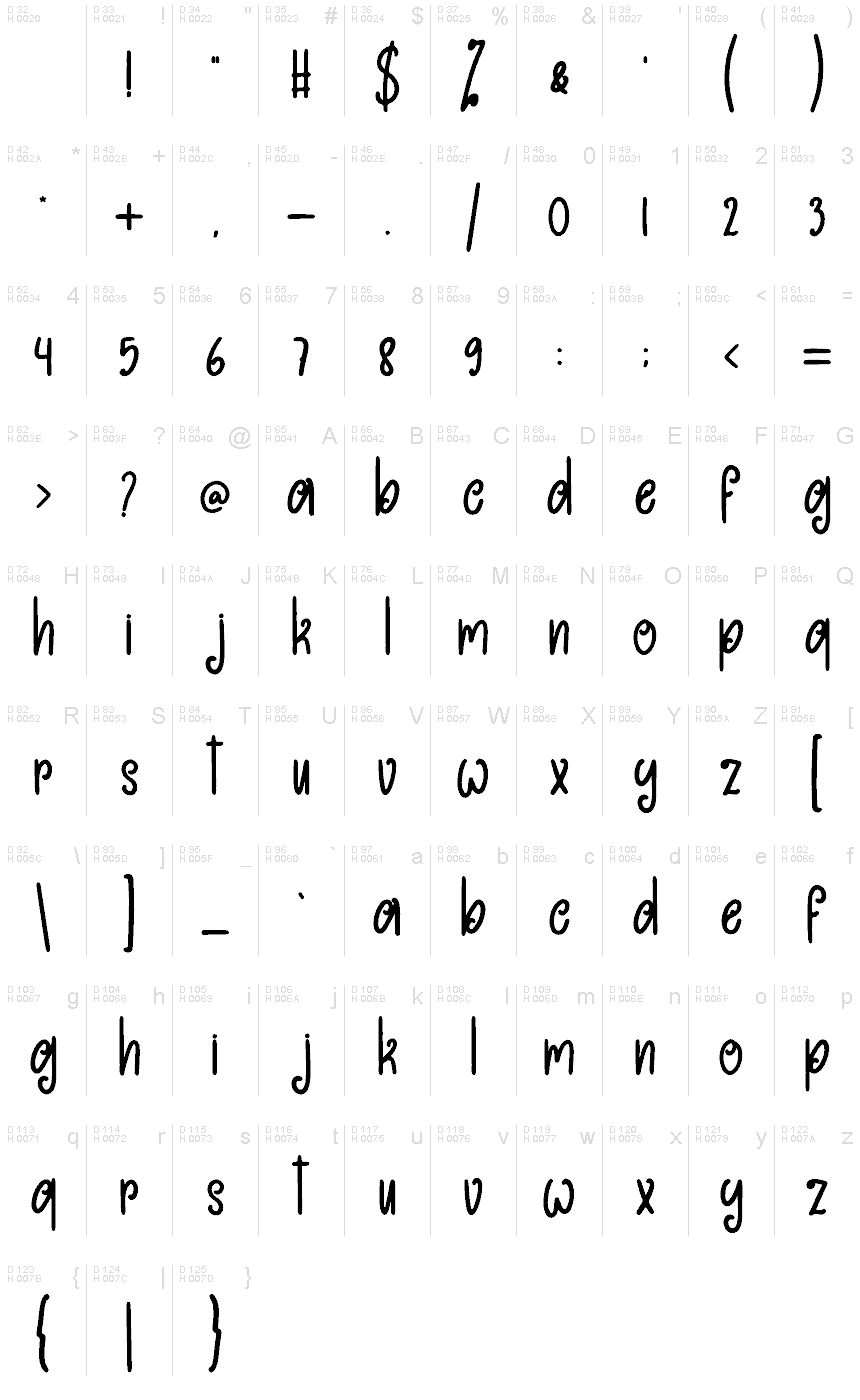
Refescy
Refescy font is a cute, casual, and stylish handwritten font created by Skiiller Studio. The modern letters are rounded with an approachable look that makes them very friendly for all users. Refinement and elegance are evident within the wonderful finishing of this free handwritten font.
Get creative with Refescy in books, posters, video titles, product packaging, web design projects, cards, stationery projects etc. The style is fun for comic books and educational materials whereas it’s also original enough to give brands a unique identity in logos or advertising.